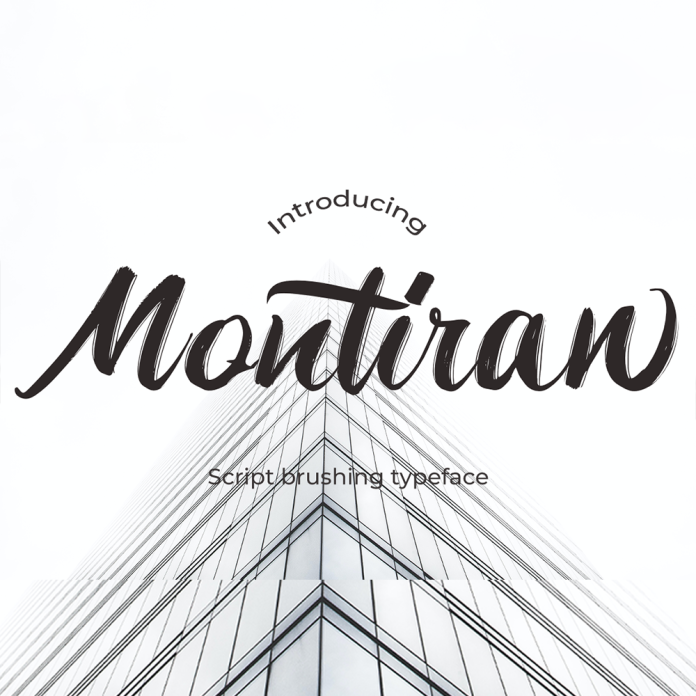
Montiran is a modern and elegant brush script font that combines fluid brush strokes with a touch of sophistication. Its flowing style and unique characters make it perfect for branding, logos, invitations, and other design projects that require a stylish and contemporary look.